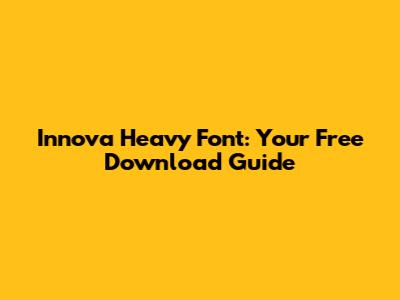
Innova Heavy Font: Free Download Guide
Hey guys! Ever stumbled upon a font that just screams impact and modernity? That's Innova Heavy for you. This font is a total game-changer when you need something bold and eye-catching. Whether you're designing a killer poster, crafting a sleek website header, or revamping your brand's visual identity, Innova Heavy can seriously elevate your project. The best part? You can often find it available for free download, making it accessible for both professional designers and hobbyists alike. In this article, we're diving deep into everything you need to know about Innova Heavy, from its best uses to where you can snag it without spending a dime.
What Makes Innova Heavy So Special?
So, what's the deal with Innova Heavy? Why is it so sought after? Well, let's break it down. First off, its weight is a major factor. The 'Heavy' in its name isn't just for show; this font packs a punch with its thick, substantial characters. This makes it incredibly readable, even from a distance, which is crucial for things like headlines, signage, and anyplace you need to grab attention quickly.
But it's not just about being bold. Innova Heavy also boasts a contemporary design. The clean lines and geometric shapes give it a modern edge that fits perfectly with today's design trends. It’s versatile enough to work in a variety of contexts, from tech startups to fashion brands. The font maintains a balance between strength and sophistication which is pretty rare. Its letterforms are carefully crafted to ensure visual harmony and readability, making it not only attention-grabbing but also pleasant to read. Moreover, the spacing and kerning are usually well-optimized, preventing the letters from appearing too crowded or too far apart. This attention to detail enhances the overall professional appearance of designs using Innova Heavy.
Another key aspect is its versatility. Despite its strong personality, Innova Heavy plays well with others. It can be paired with lighter, more delicate fonts to create a dynamic contrast, or it can stand alone to make a powerful statement. Think about using it for the main heading of a website and pairing it with a simple sans-serif font for the body text. The combination is both visually appealing and easy to read.
Plus, let's not forget the emotional impact of a font like Innova Heavy. Fonts aren't just about letters; they convey feelings and attitudes. Innova Heavy exudes confidence, strength, and modernity. It tells your audience that you're bold, innovative, and not afraid to stand out. For businesses looking to project a strong and reliable image, Innova Heavy is an excellent choice. It is suitable for logos, branding materials, and marketing campaigns that aim to convey a sense of authority and competence. The font’s robust structure assures viewers of the brand's stability and trustworthiness, making it an effective tool in building a strong brand identity.
In short, Innova Heavy is special because it combines readability, modern design, versatility, and emotional impact into one powerful package. It's a font that can truly transform your designs and help you make a lasting impression.